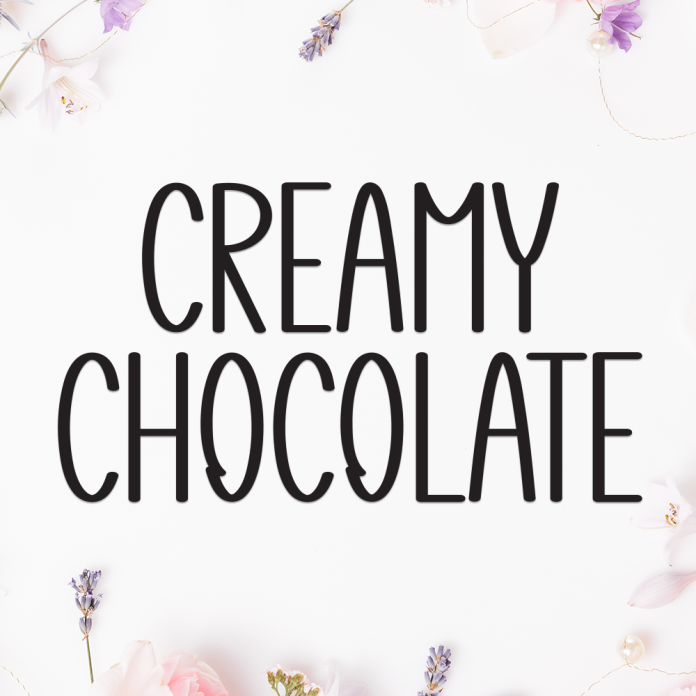
Creamy Chocolate is a delightful and whimsical display font that melts hearts like a sweet treat. With its soft curves and bold, smooth letters, it brings a warm and friendly vibe to any project.
Perfect for bakery branding, dessert packaging, café menus, kids’ designs, and anything that needs a sprinkle of sweetness, Creamy Chocolate adds charm and flavor to your visual message.
Bold and rounded display style
Fun, soft, and appetizing look
Ideal for food-related designs, especially sweets and confections
Uppercase, lowercase, numerals, and punctuation included
Supports multiple languages
Add a delicious touch to your designs with Creamy Chocolate, the font that looks as good as it sounds!